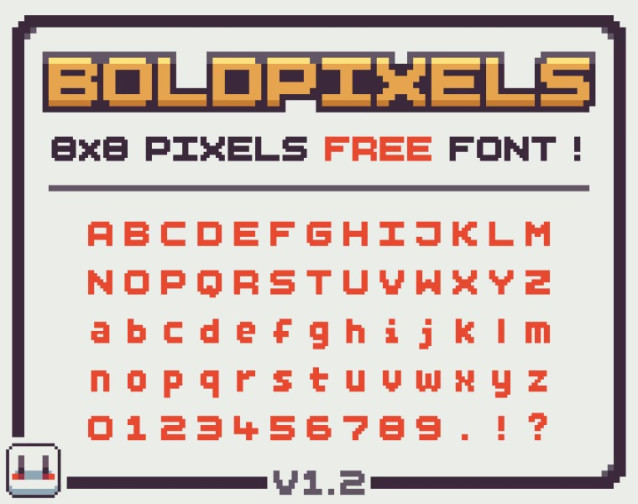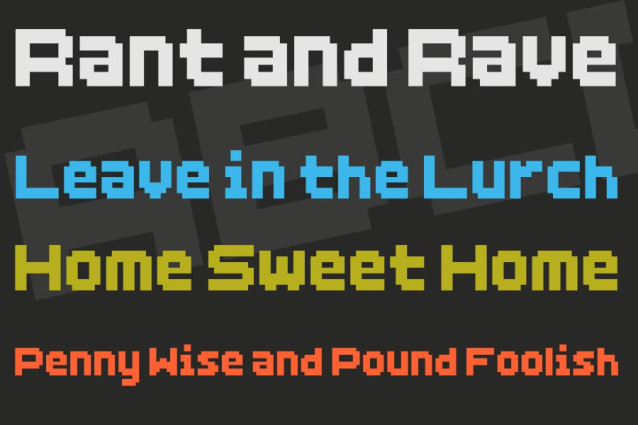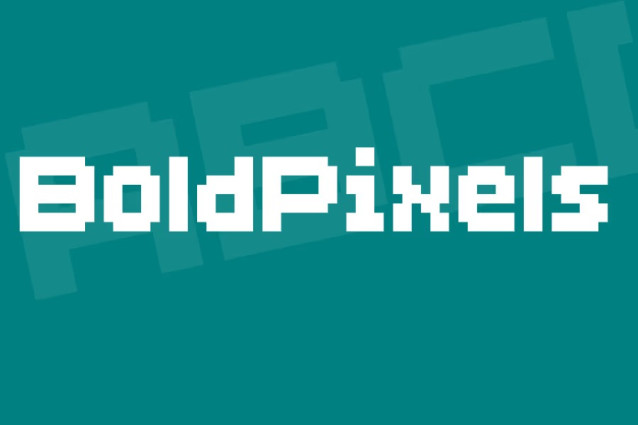
BoldPixels Font is a free 8×8 pixel font for your personal and commercial projects made with care.
I Was looking for a 8×8 pixels font for my games, so I created one!
Perfect sizes: 8px, 16px, 24px, 32px, 40px, 48px, 56px, 64px…